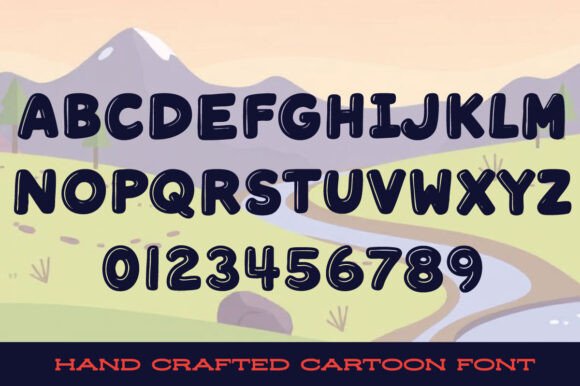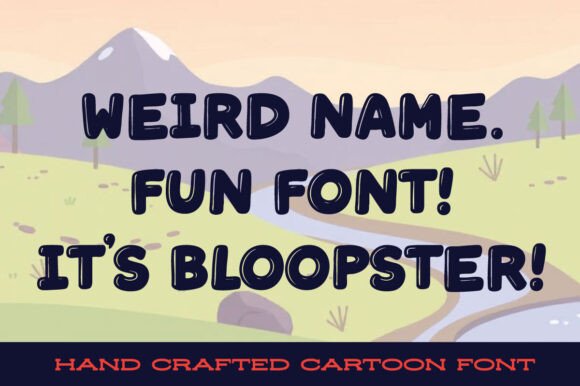
Bloopster Font: The Playful, Eye-Catching Choice for Designers and Crafters
Are you looking for a font that can add a splash of fun and whimsy to your design project? Look no further than Bloopster, a bold, bouncy cartoon font that’s sure to bring a smile to your audience’s faces. With its rounded corners and chubby letterforms, Bloopster is the perfect choice for designers and crafters who want to create something playful, approachable, and eye-catching.
The Characteristics of Bloopster Font
Bloopster is a unique font that stands out from the crowd with its distinctive characteristics. Its rounded corners and chubby letterforms give it a friendly, approachable vibe that’s perfect for designs that need to appeal to a younger audience. The font is bold and bouncy, with a sense of energy and personality that’s hard to resist. Whether you’re designing for kids, creating a comic book title, or packaging a toy, Bloopster is the perfect choice.
Uses for Bloopster Font
Bloopster is a versatile font that can be used in a variety of design projects. Here are some ideas to get you started:
- Kids’ projects: Bloopster is perfect for designing materials for kids, such as children’s books, educational resources, and activity sheets.
- Comic book titles: Add a touch of playfulness to your comic book titles with Bloopster’s bold, bouncy letterforms.
- Toy packaging: Make your toy packaging stand out on store shelves with Bloopster’s eye-catching font.
- Signs and posters: Use Bloopster to create fun and playful signs and posters for events, promotions, or announcements.
- Digital graphics: Bloopster is perfect for creating digital graphics, such as social media posts, blog headers, and email newsletters.
The Benefits of Using Bloopster Font
So why choose Bloopster for your design project? Here are just a few benefits of using this playful font:
- Instant appeal: Bloopster’s bold, bouncy letterforms are sure to grab attention and draw your audience in.
- Playful vibe: Bloopster adds a sense of whimsy and joy to any design, making it perfect for projects that need to be fun and lighthearted.
- Easy to read: Despite its playful nature, Bloopster is easy to read, even in large or small sizes.
- Versatile: Bloopster can be used in a variety of design projects, from digital graphics to print materials.
Tips for Using Bloopster Font
Here are a few tips for getting the most out of Bloopster:
- Use it sparingly: Bloopster is a bold font, so use it sparingly to avoid overwhelming your design.
- Pair it with a neutral font: Balance out Bloopster’s playfulness with a neutral font, such as a sans-serif or serif font.
- Experiment with colors: Bloopster looks great in bright, bold colors, so don’t be afraid to experiment and find the perfect hue for your design.
- Have fun: Most importantly, have fun with Bloopster! The font is designed to be playful and fun, so don’t be afraid to let your personality shine through in your design.
Bloopster is a unique and playful font that’s perfect for designers and crafters who want to add a splash of fun to their design projects. With its bold, bouncy letterforms and friendly, approachable vibe, Bloopster is sure to bring a smile to your audience’s faces. Whether you’re designing for kids, creating a comic book title, or packaging a toy, Bloopster is the perfect choice. So why not give it a try and see how Bloopster can make your project pop?
Bloopster is a fun and playful font that’s perfect for designers and crafters who want to add a splash of whimsy to their design projects. With its bold, bouncy letterforms and friendly, approachable vibe, Bloopster is sure to bring a smile to your audience’s faces. Whether you’re designing for kids, creating a comic book title, or packaging a toy, Bloopster is the perfect choice. So why not give it a try and see how Bloopster can make your project pop?